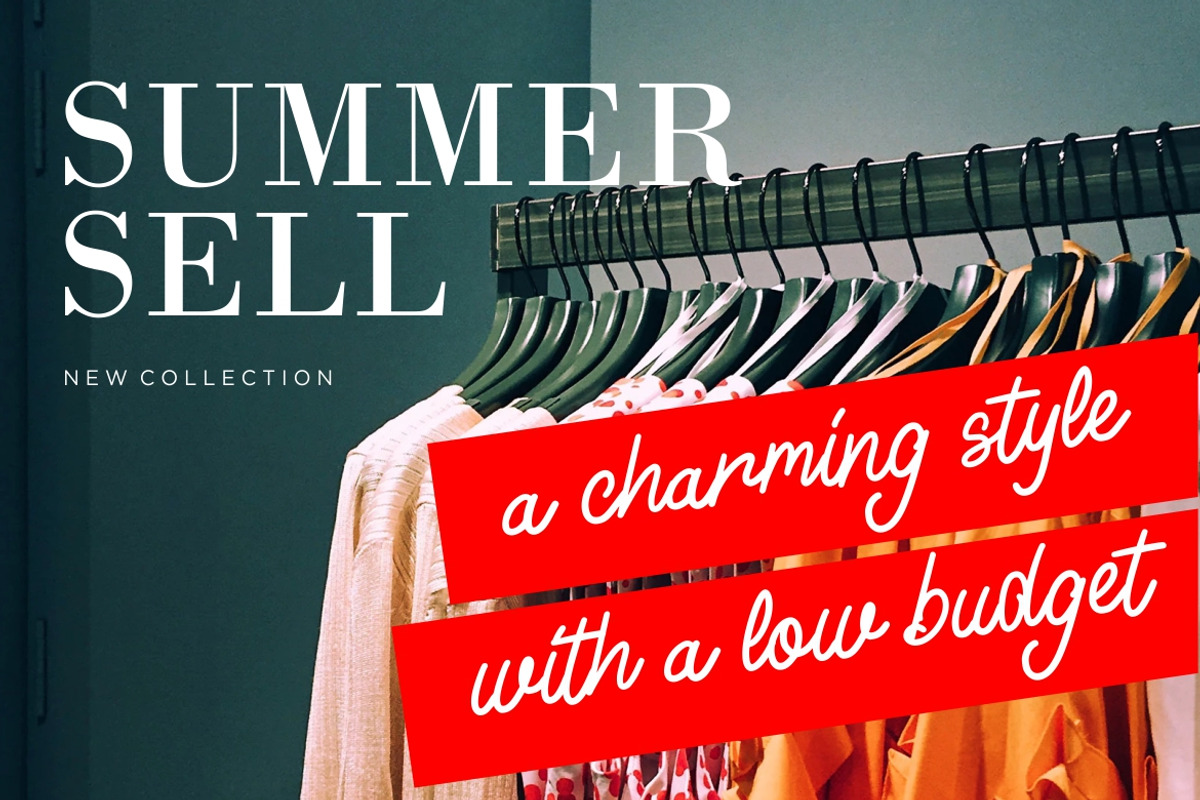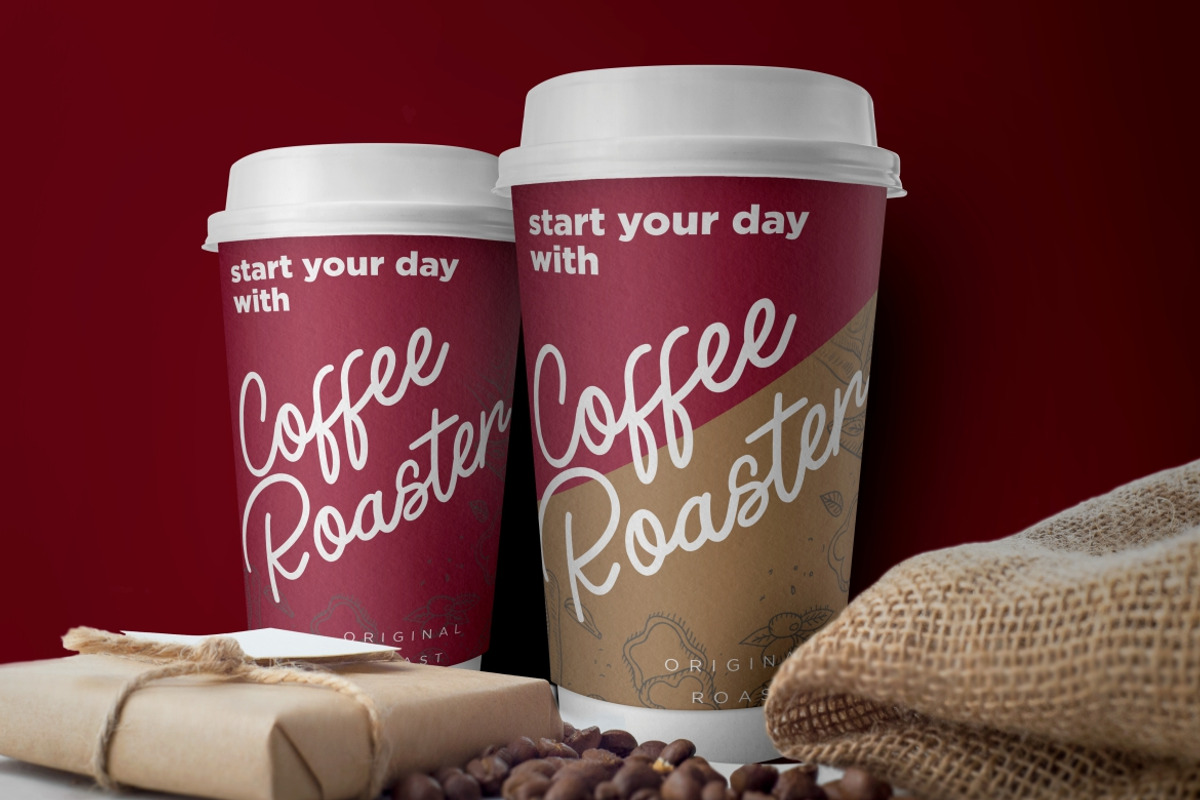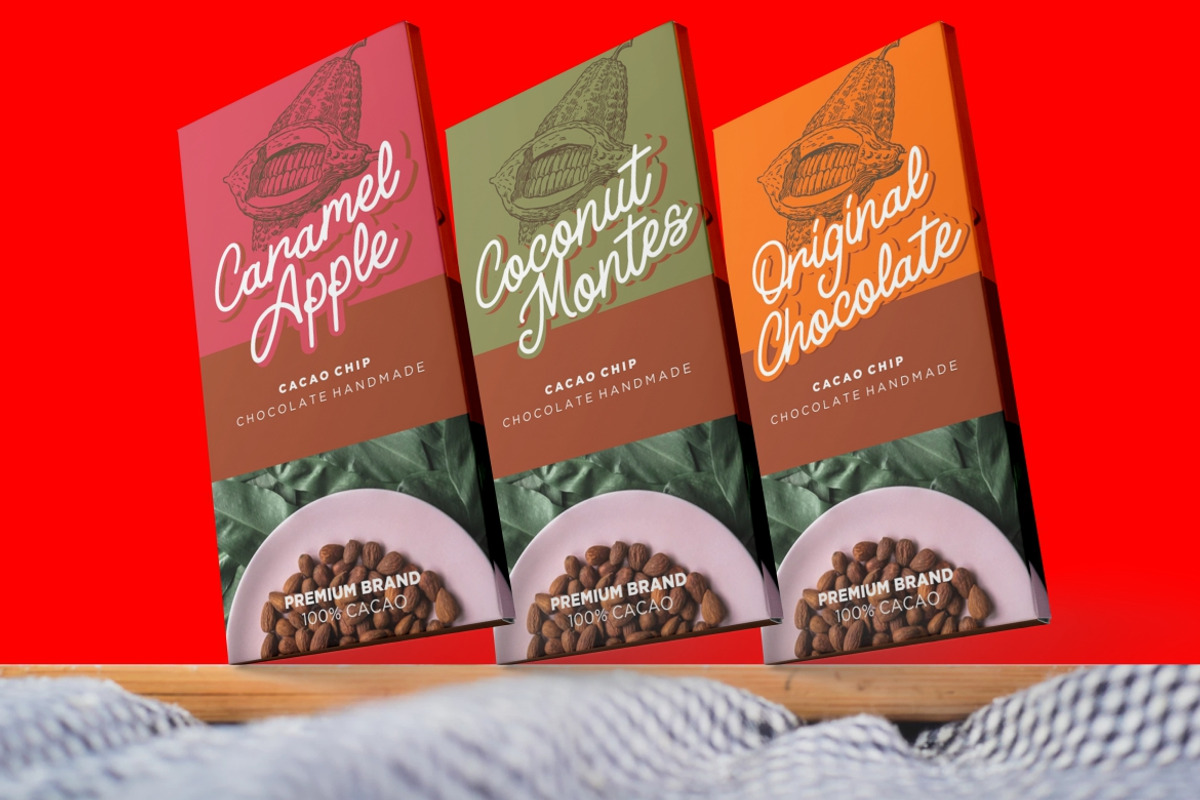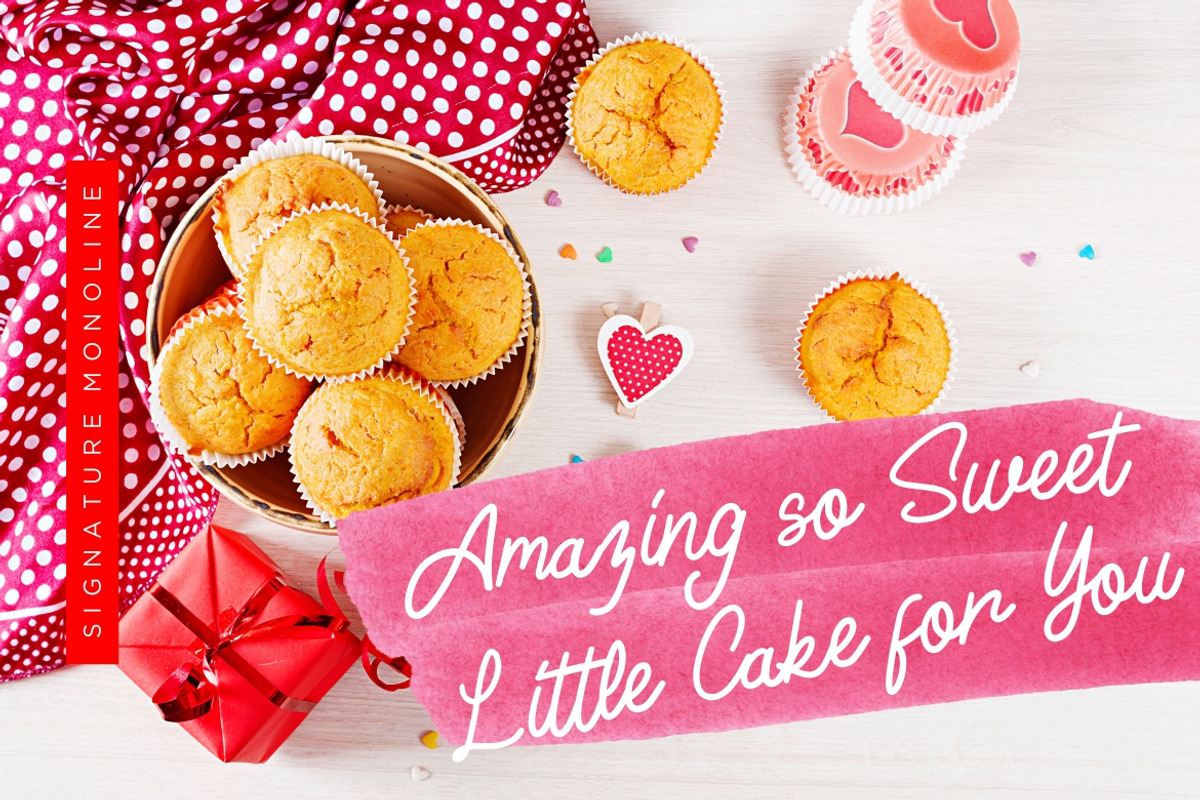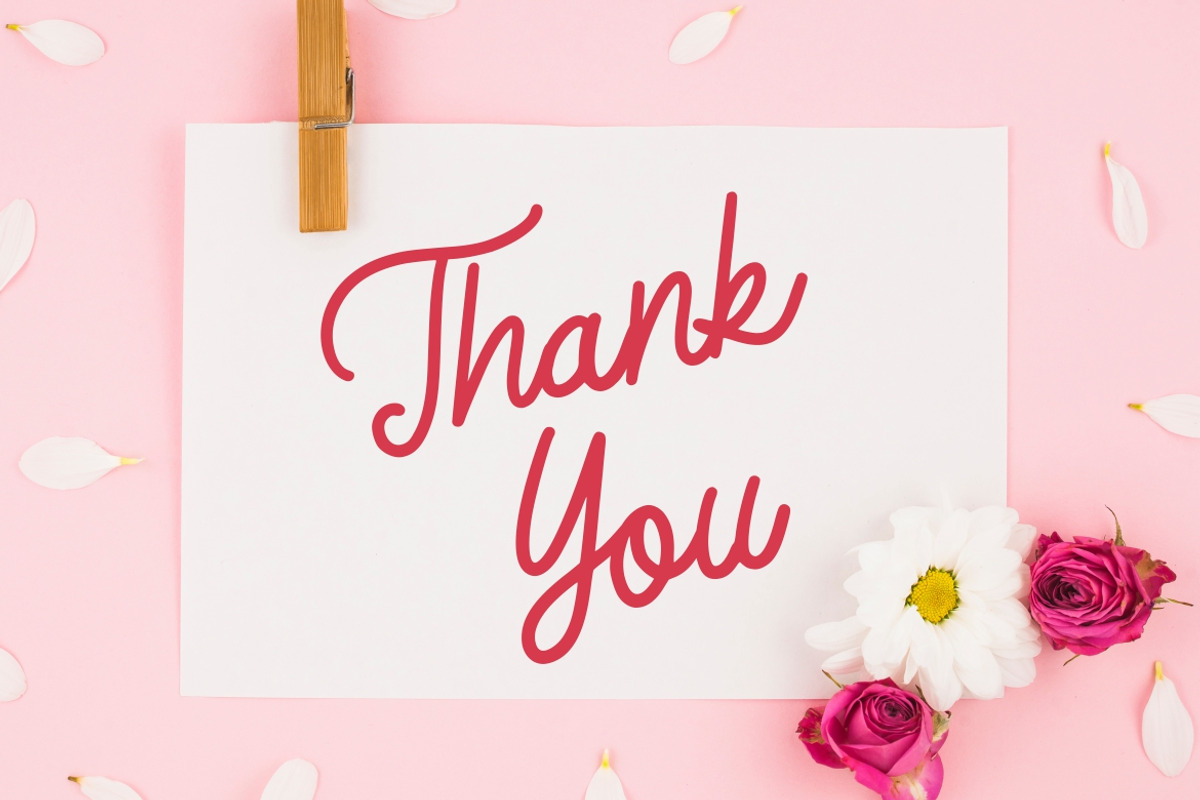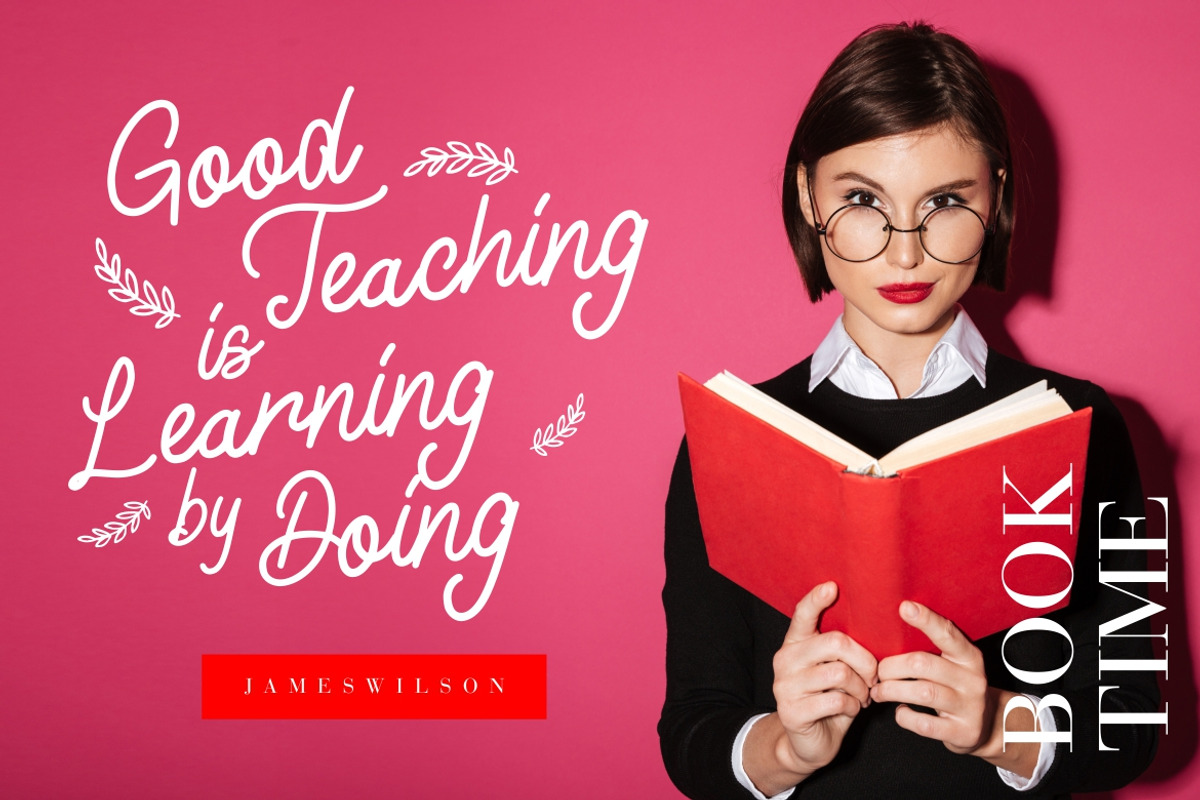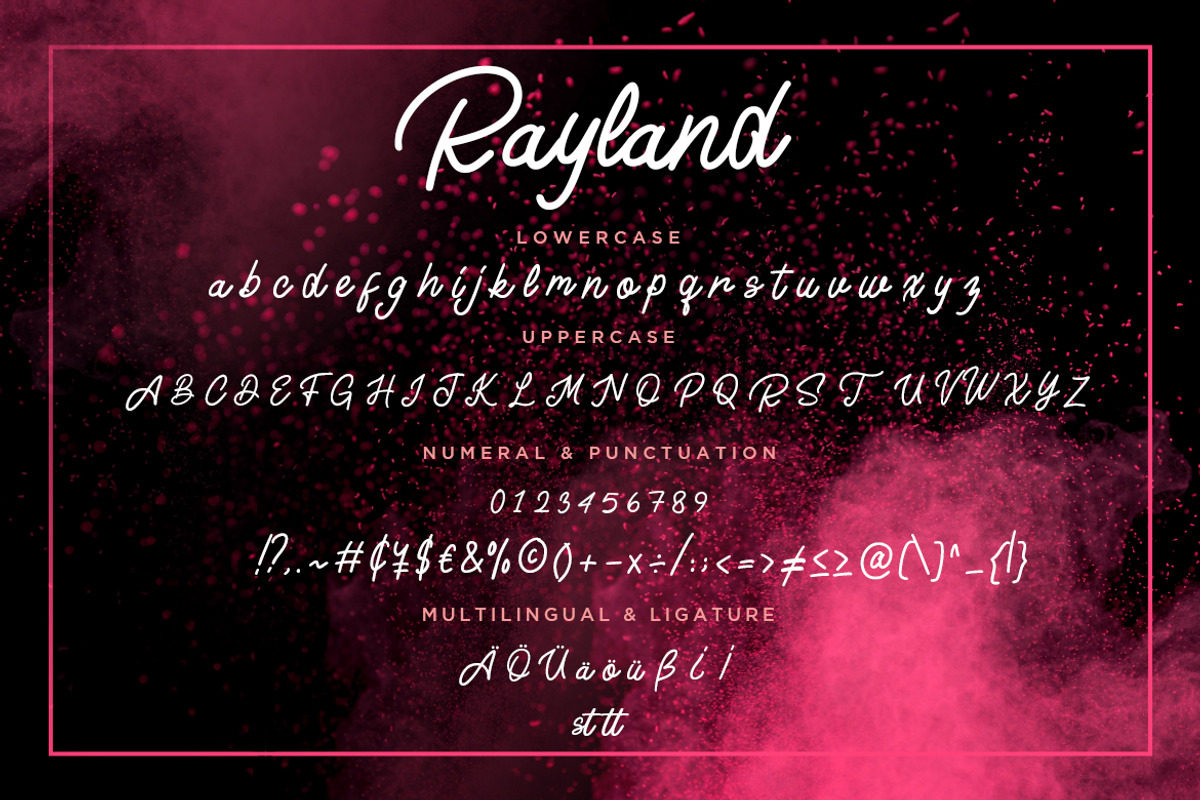
Rayland Signature Business Font
Rayland is signature monoline stylish font perfect for your latest project.
Rayland is perfect for branding projects, logo, wedding designs, social media posts, advertisements, product packaging, product designs, label, photography, watermark, invitation, stationery and any projects that need handwriting taste.
- Fonts include multilingual support for; ä ö ü Ä Ö Ü ß ¿ ¡
Why Rayland Signature Business Font is worth a look
Rayland Signature Business Font by Creatype Studio fits naturally into Branding, posters, packaging, typography.